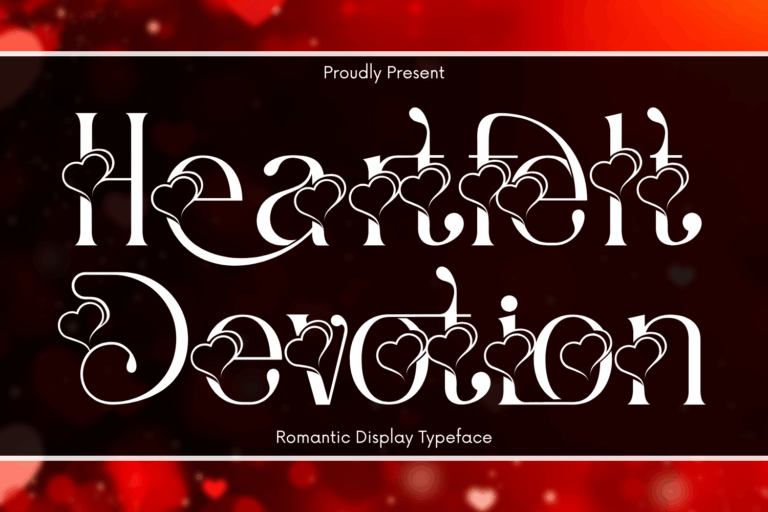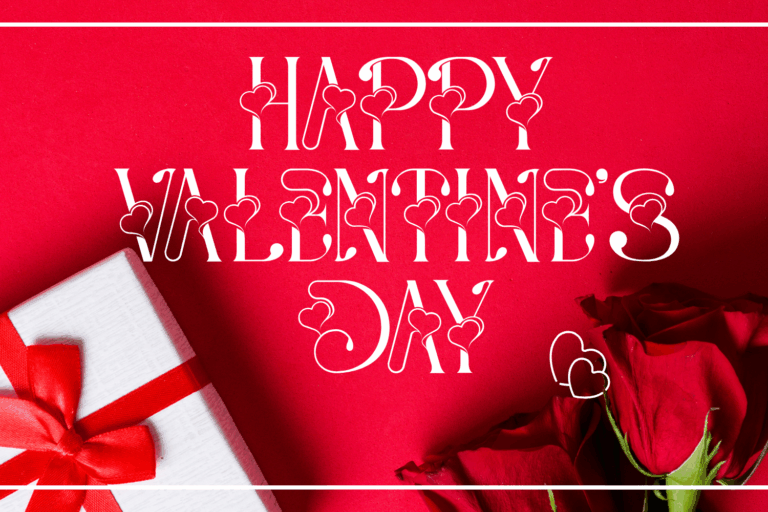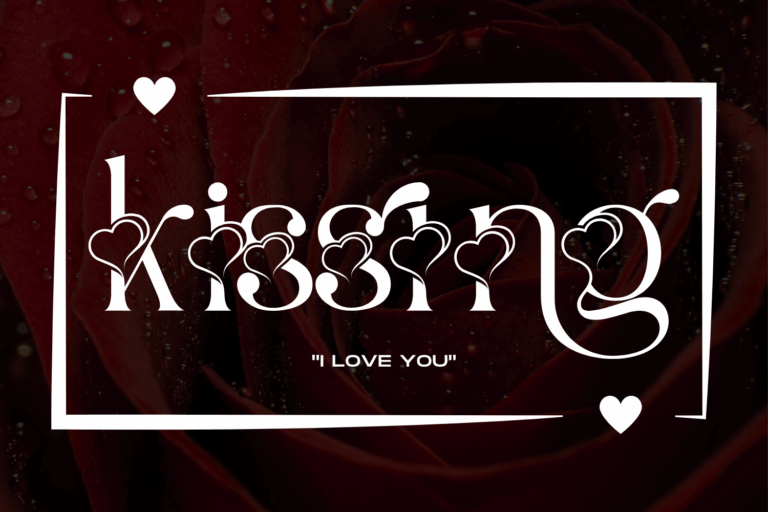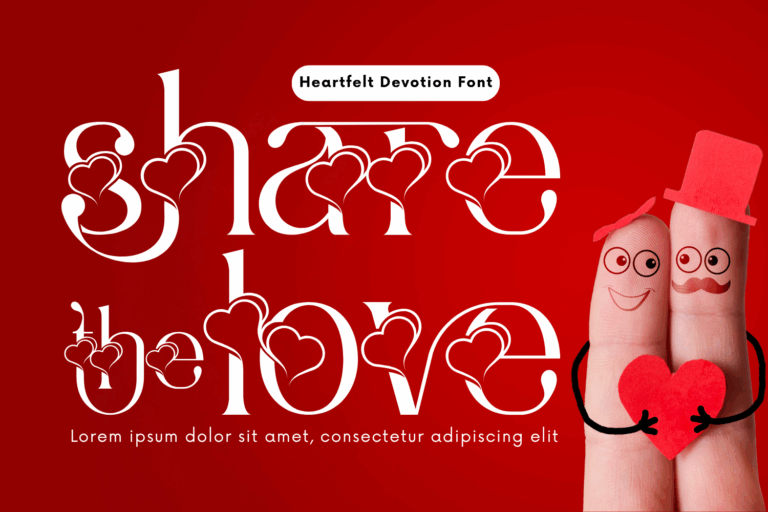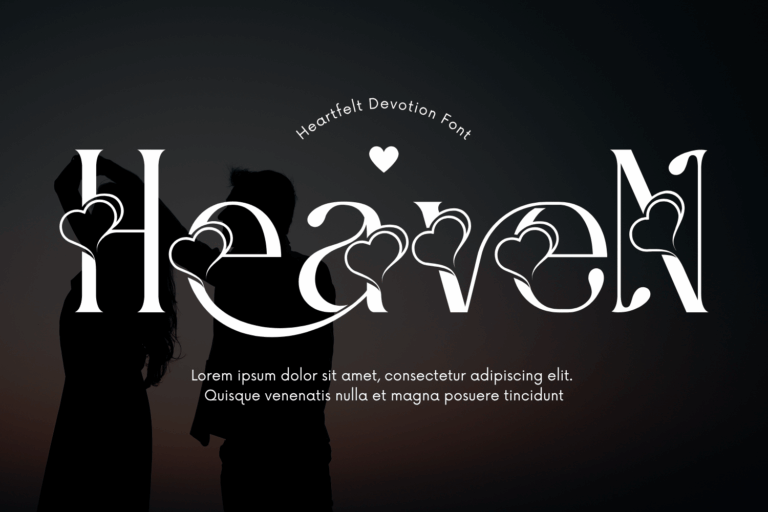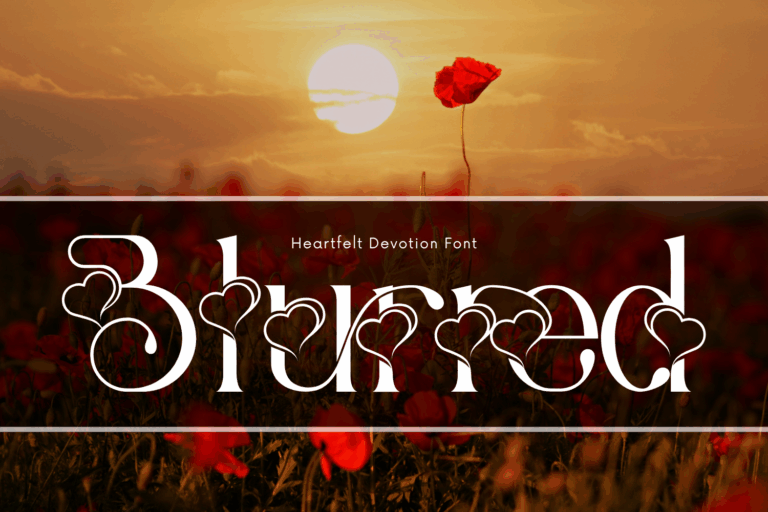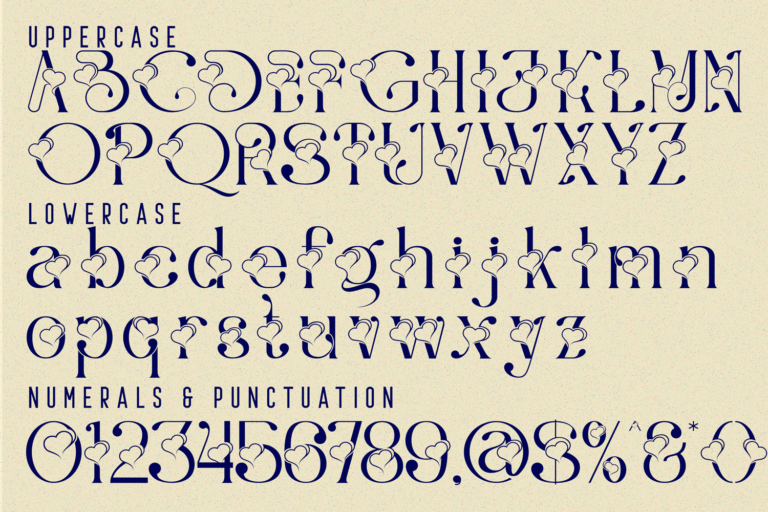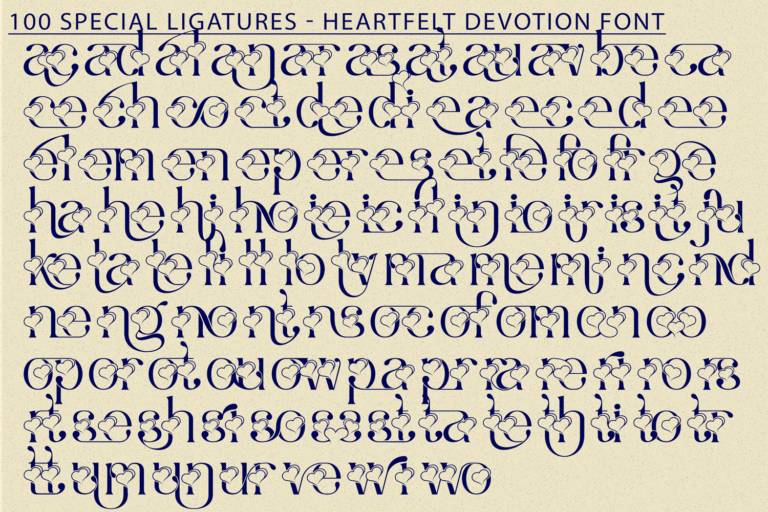
Heartfelt Devotion – Romantic Font is a charming and romantic serif display font crafted to capture the warmth of affection and heartfelt expression. With its unique heart-infused terminals and whimsical curves, this typeface is designed to bring elegance, sweetness, and personality to any design. Perfect for wedding invitations, Valentine’s Day designs, quotes, packaging, and editorial titles, Heartfelt Devotion delivers a visual poetry that speaks directly to the heart. Each glyph is delicately styled to blend classical serif sophistication with playful ornamental detailing.
Font Features:
• Uppercase & Lowercase Letters
• ~100 Special Heart Ligatures
• Accented Characters for Multilingual Support
• Romantic curves & decorative flair
ac ad al an ar as at au av be ca ce ch co ct de di ea ec ed ee el em en ep er es et fe fo fr ge ha he hi ho ie ic il in io ir is it ju ke la le li ll lo ly ma me mi nc nd ne ng no nt ns oc of om on oo op or ot ou ow pa pr ra rd re ri ro rs rt se sh si so ss st ta te th ti to tr tt um un ur ve wi wo
Heartfelt Devotion – Romantic Font